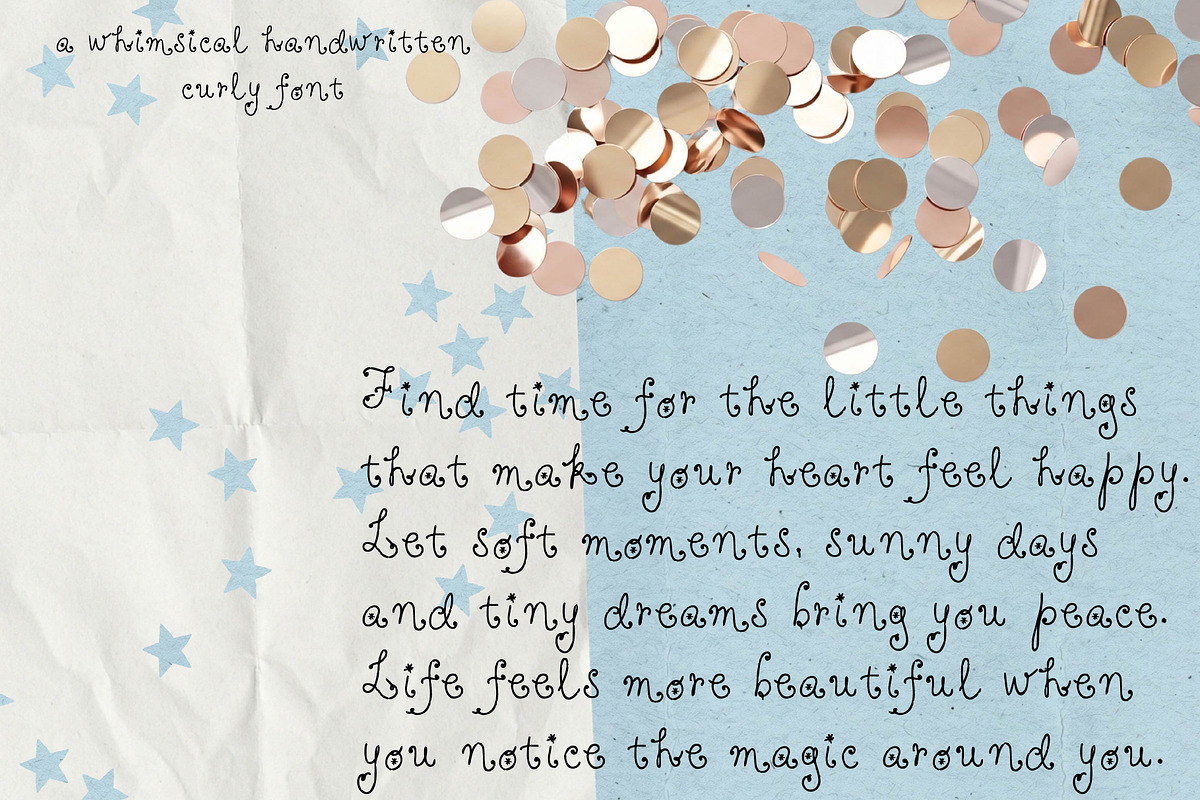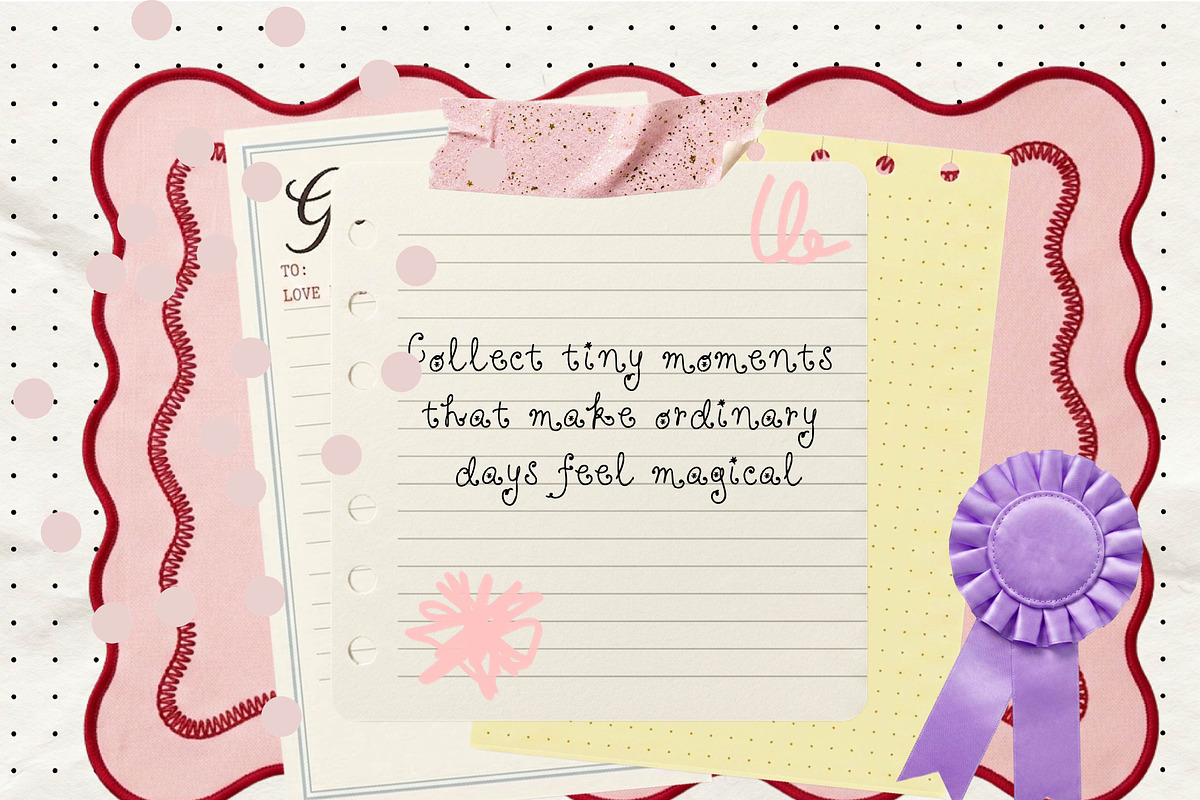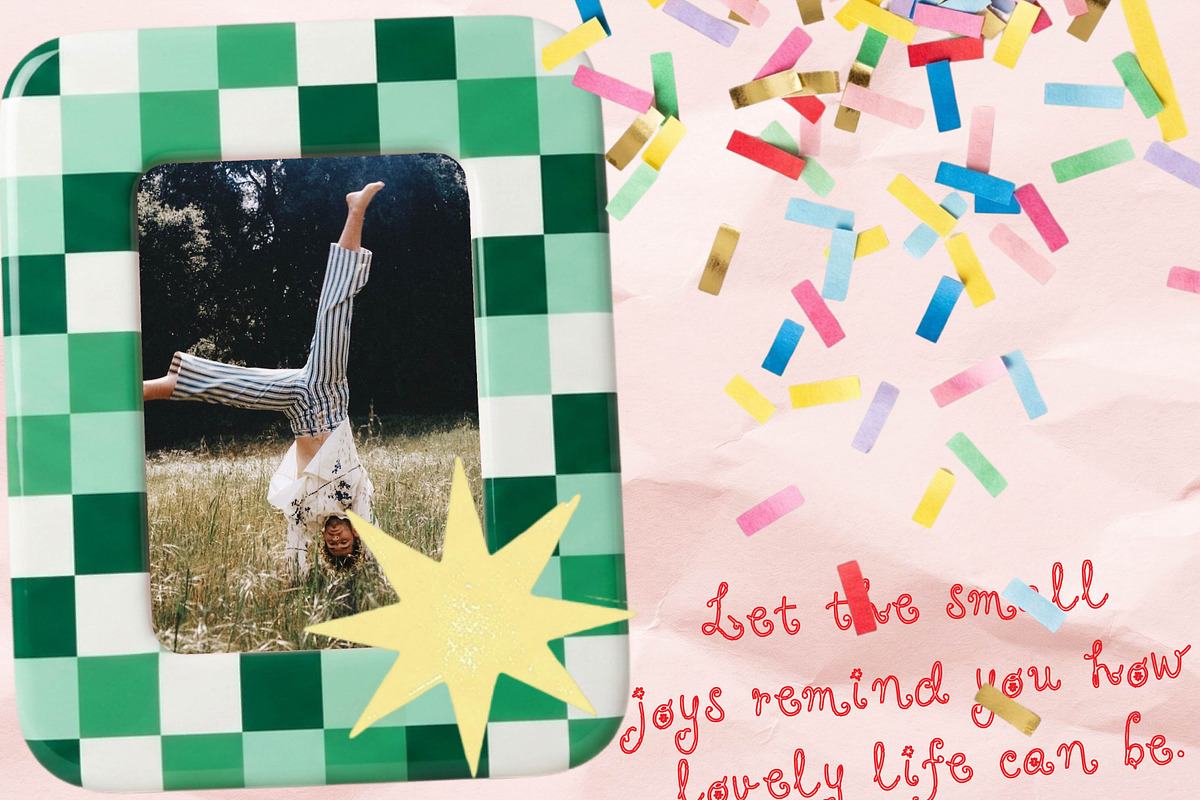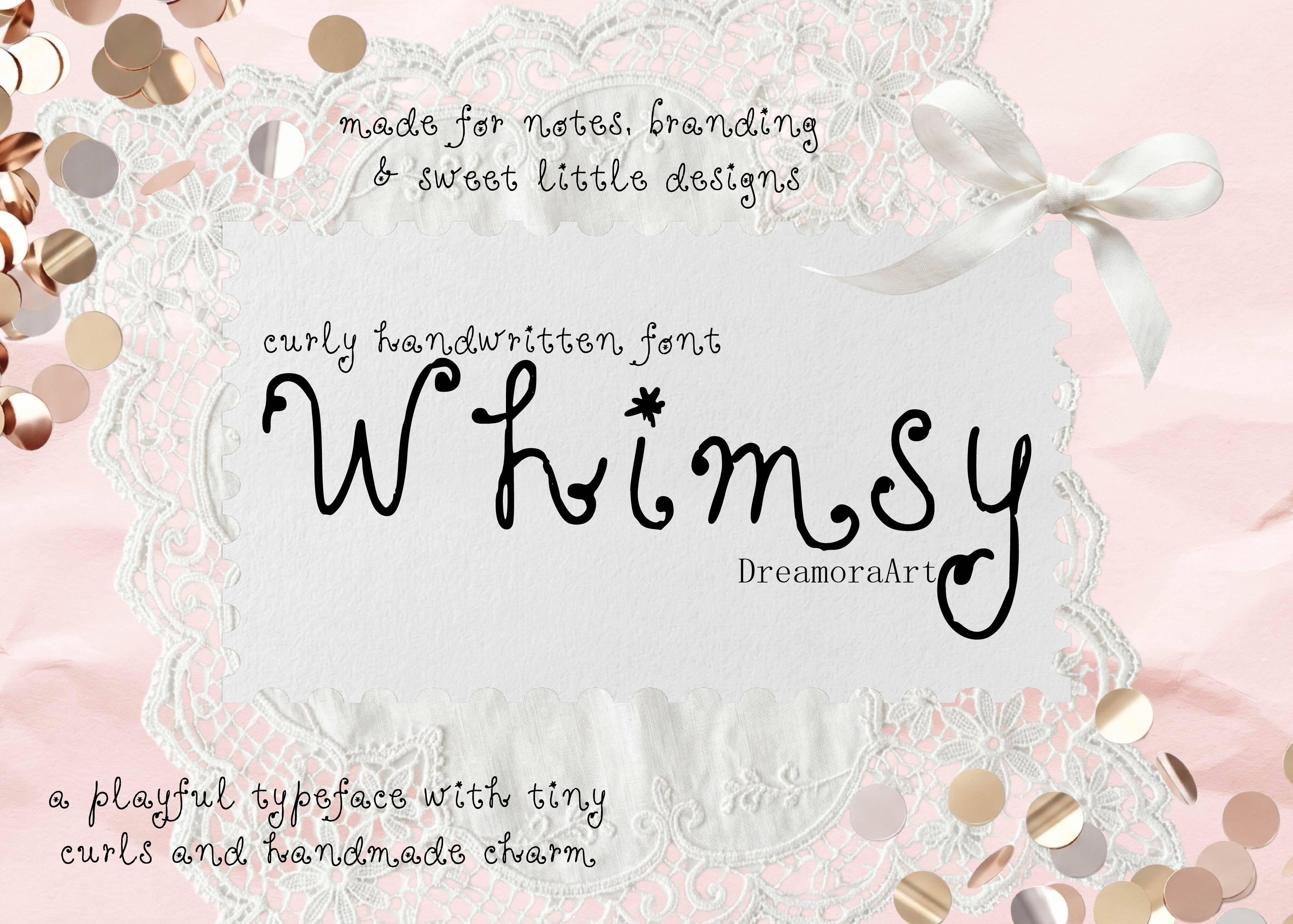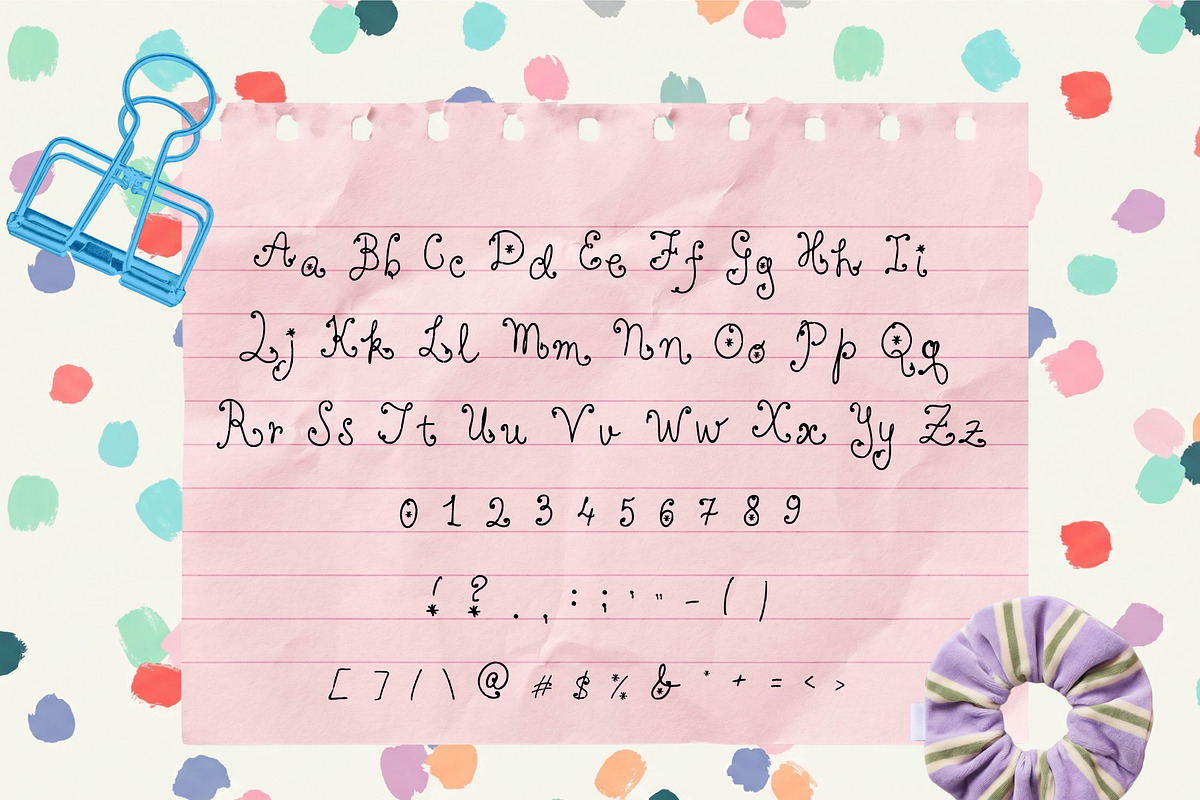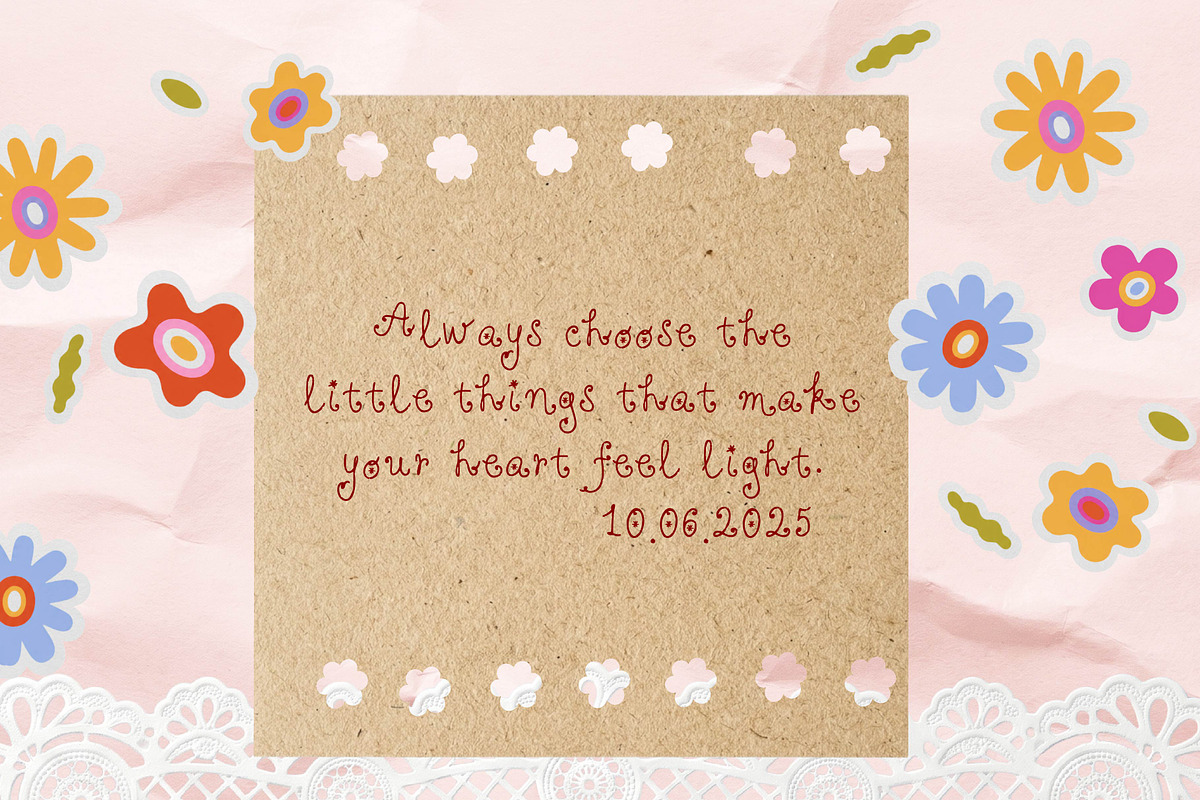
Whimsy - Curly Handwritten Font
Whimsy is a charming handwritten curly font with playful loops, soft lines and a sweet handmade feel.
This font is perfect for notes, branding, stickers, greeting cards, packaging, journals, quotes, invitations, social media graphics and cozy creative projects. Its decorative style adds a gentle, dreamy and nostalgic touch to any design.
Use Whimsy to create lovely titles, cute lettering compositions, romantic quotes and playful designs that feel personal, soft and full of character.